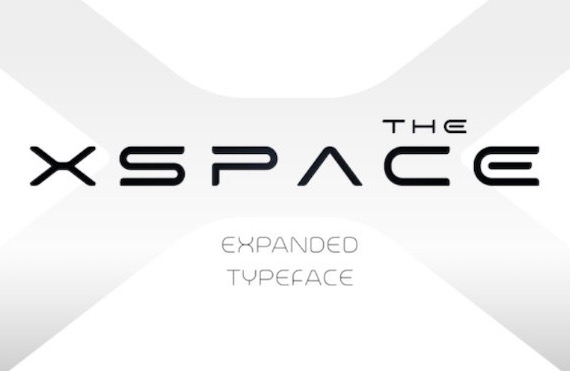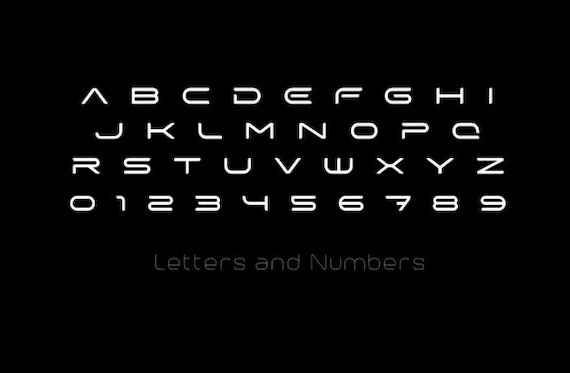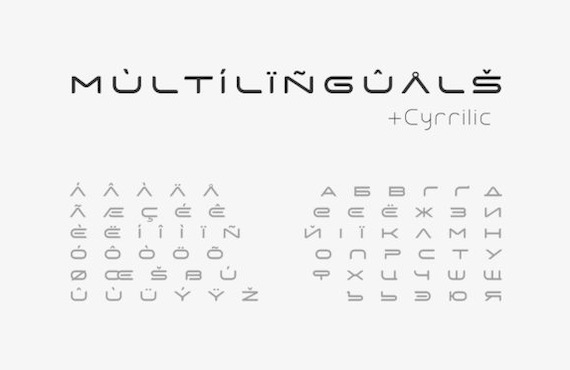
X-Space font is a stylish & futuristic display typeface that was designed shared by Artway Studio. It’s very perfect for modern futuristic logos, headlines, automotive-type designs, science research posters, and more.
Space modern Display Font